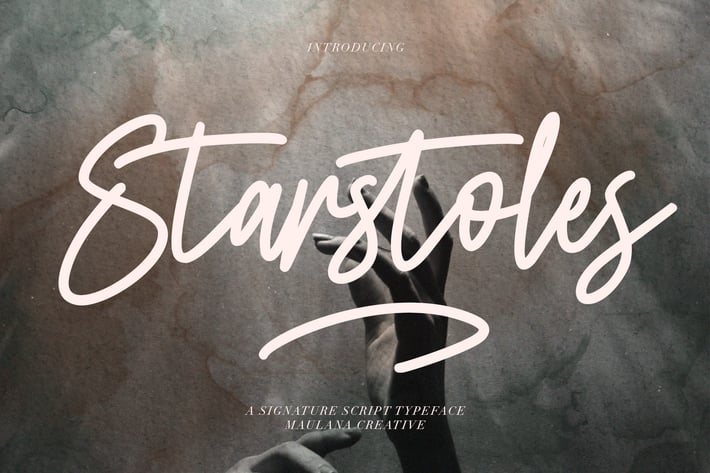
Starstoles Signature Script Typeface
Give your designs an authentic handcrafted feel. "Starstoles Signature Script Typeface" is perfectly suited to signature, stationery, logo, typography quotes, magazine or book cover, website header, clothing, branding, packaging design and more.